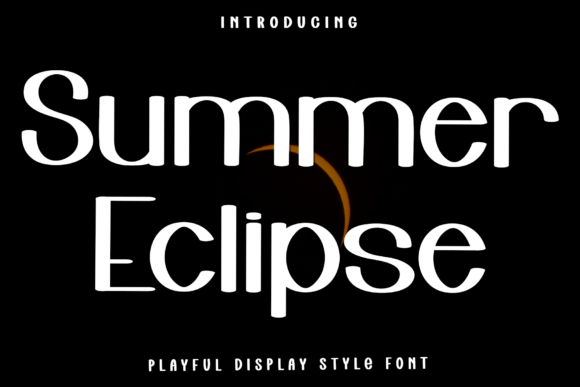
Summer Eclipse: A Designer's Honest Review for Real Projects
The First Look — Mood, Light, and Letterforms
Some typefaces arrive quietly. Summer Eclipse does not. The moment I loaded it into a test artboard, it shifted the entire mood of the layout. That is not a small thing. A display font that genuinely alters atmosphere without demanding a dozen supporting effects is rare, and this one earns attention fast.
The letterforms carry a warm, radiant quality — something between a golden-hour glow and the crisp edge of a solar eclipse. Curves feel open and generous. Terminals have a subtle softening that reads as intentional rather than rounded by default. There is confidence here, but not aggression. The personality leans expressive without tipping into novelty territory, which immediately makes it more versatile than many decorative alternatives.
For designers who evaluate typefaces through the lens of real client work, first impressions matter less than sustained performance. Still, the initial hit of Summer Eclipse tells you something useful: this is a creative font built to headline, not to hide.
What This Font Says Before Anyone Reads a Word
Typography communicates before comprehension kicks in. Summer Eclipse speaks of warmth, movement, and a certain curated optimism. It does not feel corporate. It does not feel childish. Instead, it occupies a middle ground that suits lifestyle brands, hospitality visuals, editorial layouts, and creative campaigns where the message needs to feel both elevated and approachable.
The personality is sunlit but not naive. There is a structural discipline underneath the expressive surface that keeps it from becoming saccharine. That balance — between decorative charm and legible architecture — is what separates a display font worth using from one that sits unused in a font folder.
Where Summer Eclipse Feels Completely at Home
Placement matters. A typeface that shines in one context can collapse in another. Based on testing across multiple project types, here is where Summer Eclipse performs with the fewest compromises.
Brand Marks and Identity Systems
For logo design and brand identity work, this typeface has clear potential. Short brand names set in Summer Eclipse carry strong recognition value. The letterforms are distinctive enough that a wordmark feels owned rather than borrowed. I tested it against a boutique candle brand concept, a coastal café identity, and a music festival mark — in each case, it held the focal point without needing heavy customisation.
One caveat: identity systems need consistency across touchpoints. Summer Eclipse works best as the hero element. Pair it with a restrained supporting typeface for body copy and let it own the spotlight. Brands that try to use it everywhere will dilute what makes it effective.
Packaging That Demands a Second Glance
Packaging design is where Summer Eclipse genuinely earns its place. On shelf mockups, product labels, and box wraps, the typeface draws the eye with an ease that feels almost unfair. The warmth in the letterforms complements kraft paper, soft-touch finishes, foil stamping, and matte substrates beautifully.
I tested it on skincare labels, wine bottles, and gourmet food packaging. In every case, the font elevated the perceived value of the product. That is a measurable outcome for commercial font selection — if a typeface can make a product look more premium without additional design labour, it justifies its slot in the library.
Posters, Flyers, and Large-Format Print
Large-scale applications let Summer Eclipse breathe. On event posters, festival flyers, and promotional banners, the typeface commands space without shouting. Headlines set in it feel intentional and atmospheric. I recommend trying it at sizes above 36 points for print — below that, some of the finer details begin to recede, which brings us to limitations later in this review.
For editorial design, particularly feature spreads, opening titles, and pull quotes, it introduces a tonal shift that can break visual monotony. Pair it with a clean serif font for body text and the contrast becomes a structural asset.
Website Headers and Editorial Features
Web design presents a different set of demands. Summer Eclipse works well in hero headers, landing page titles, and featured article graphics where the text is short and the impact needs to be immediate. On retina screens, the details render cleanly. On lower-resolution displays, some nuance softens but the overall character holds.
For blog graphics and online magazine layouts, using it as an accent typeface — perhaps for category labels, featured pull quotes, or section openers — maintains readability while adding visual texture. Just keep the usage contained. A homepage built entirely around a display font is a gamble most commercial projects should avoid.
Social Media Graphics and Ad Creative
Social media graphics live and die by scroll-stopping power. Summer Eclipse performs strongly here. Tested across Instagram story templates, Pinterest pins, and Facebook ad headers, it consistently produced visuals that felt curated rather than templated. For digital ads, the font's warmth humanises promotional messaging — useful for brands that want to sell without feeling transactional.
The limitations are real and entirely manageable if respected. Keep it large. Keep it short. Pair it quietly. Test it thoroughly. Follow those principles and Summer Eclipse becomes a reliable creative asset rather than a one-project novelty. For the right brief, it will make the work look more expensive, more intentional, and more memorable — and that is exactly what a well-chosen display font should do.